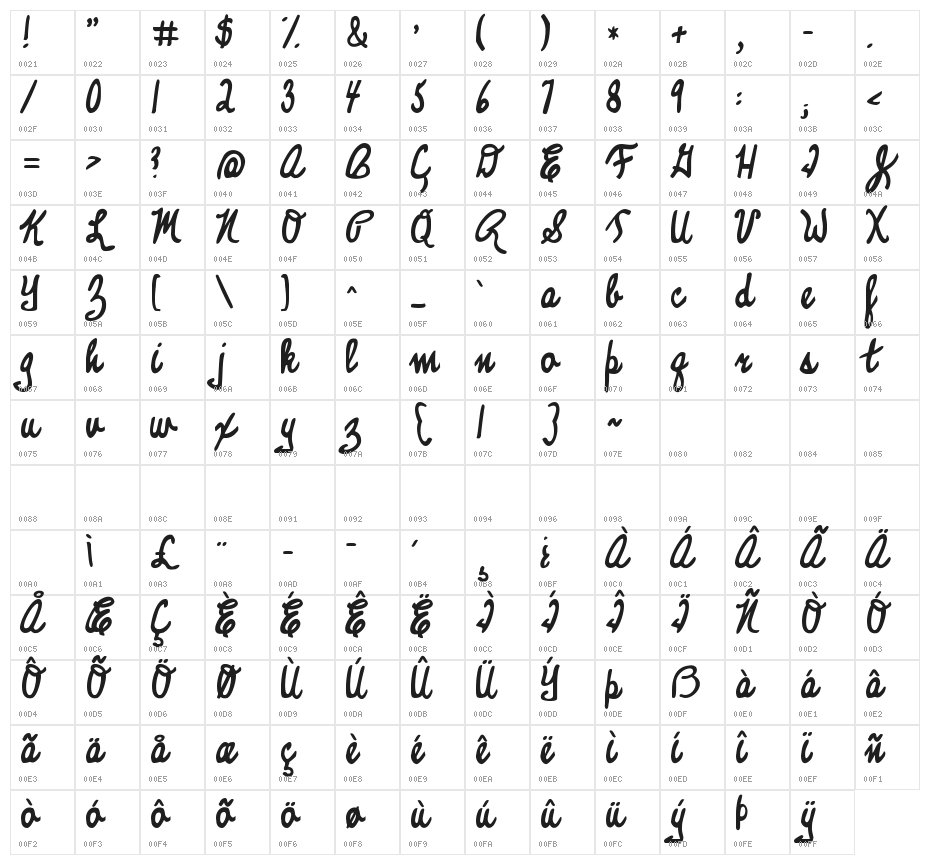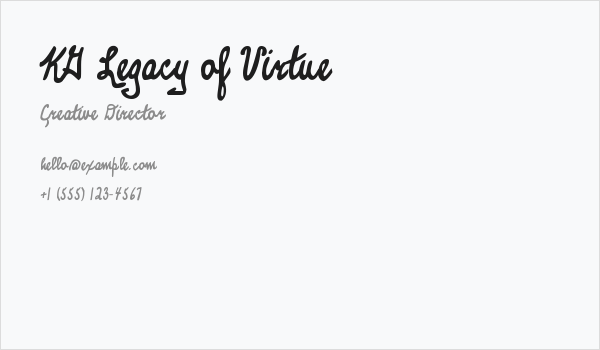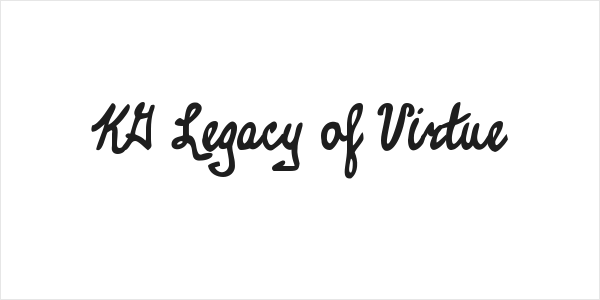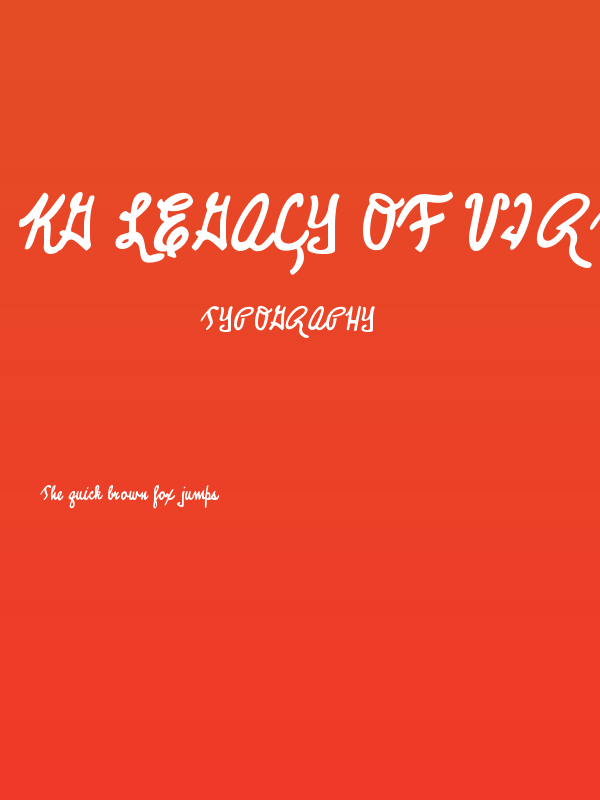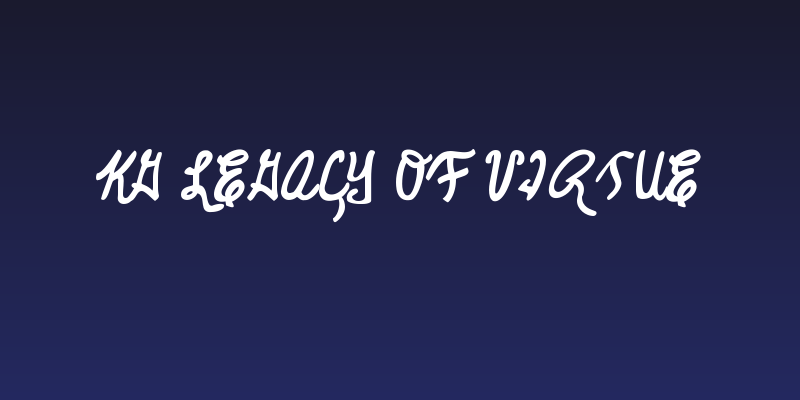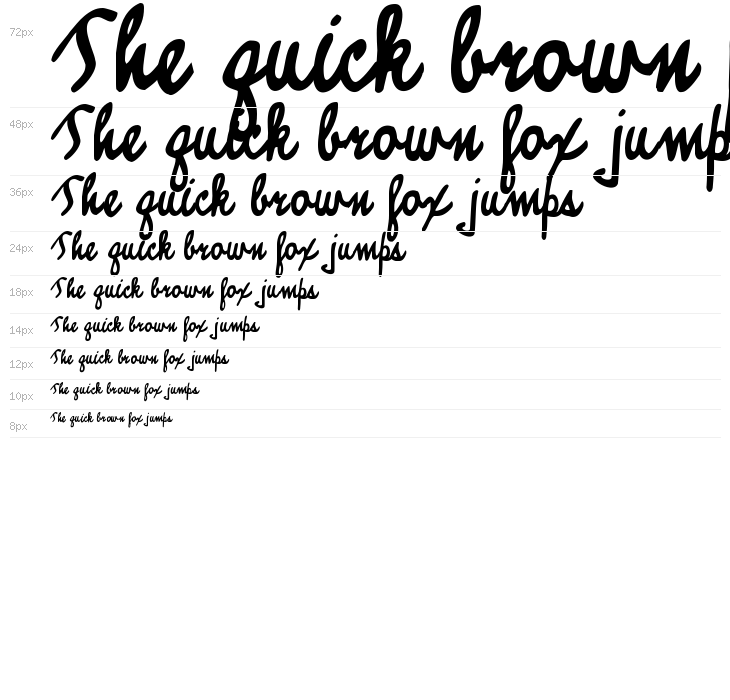
KG Legacy of Virtue Font
KG Legacy of Virtue Description
This font features a bold, handwritten style with a playful and energetic flair. The letters are connected in a flowing manner, reminiscent of cursive handwriting, yet maintain a distinct and legible appearance. The uppercase letters are slightly more structured, while the lowercase letters exhibit more fluidity and movement. Numbers and special characters are consistent with the overall style, adding to the cohesive look. The font's thick strokes and dynamic curves give it a lively and expressive character, making it suitable for creative and informal applications.
| Proposed Projects | Ideal for greeting cards, invitations, posters, and branding that requires a personal touch. |